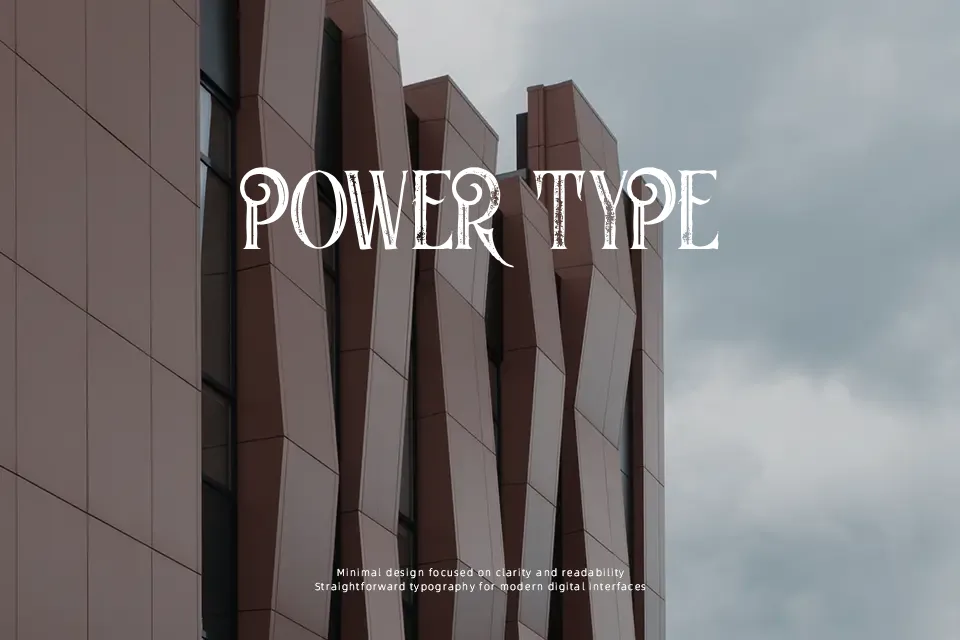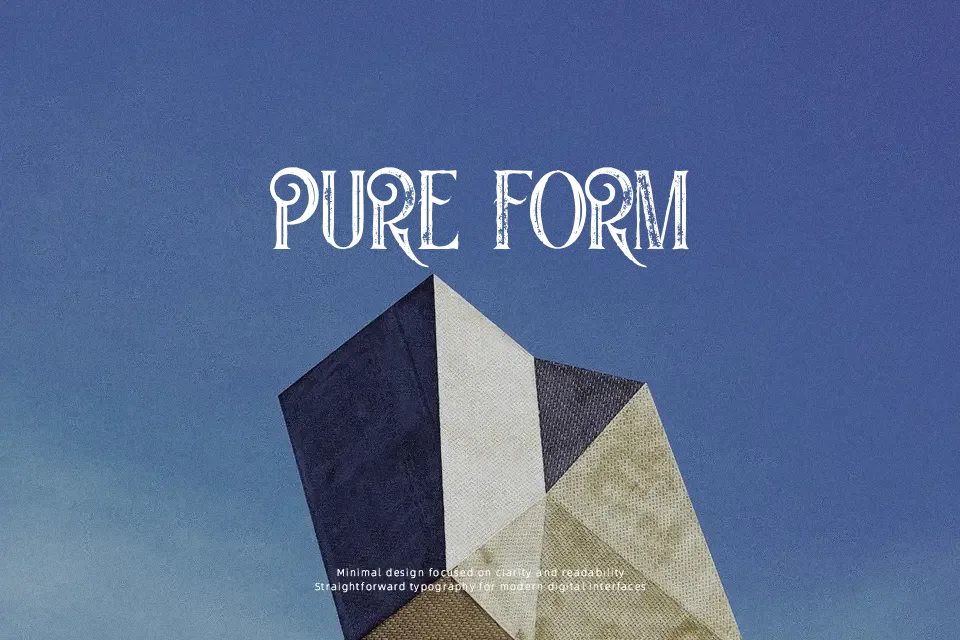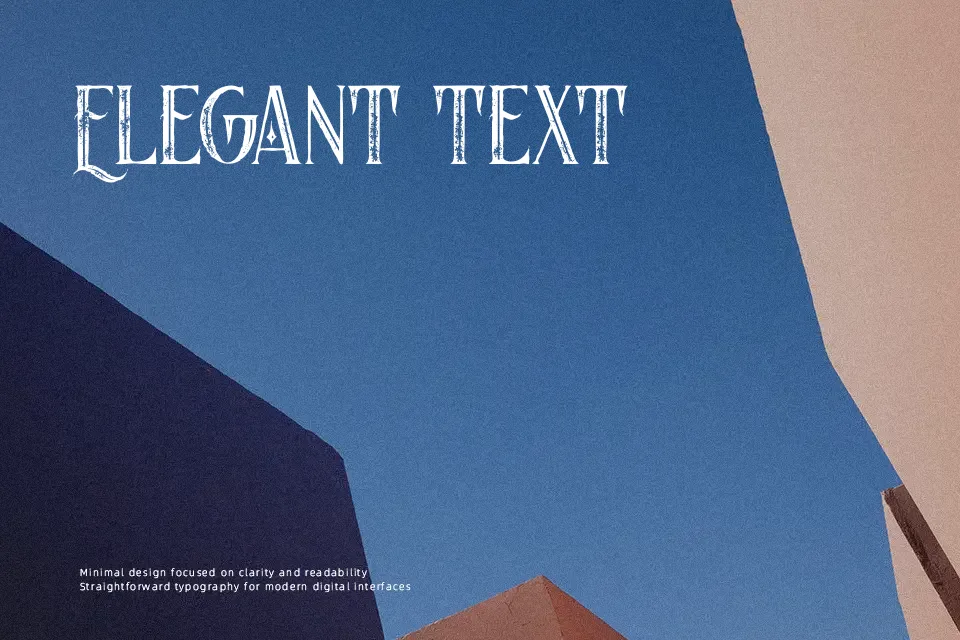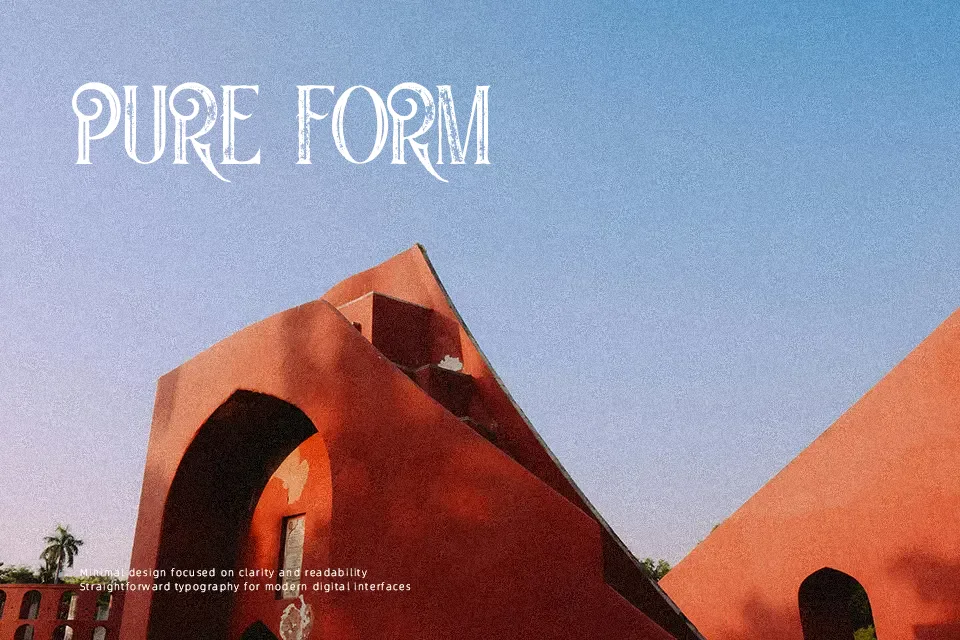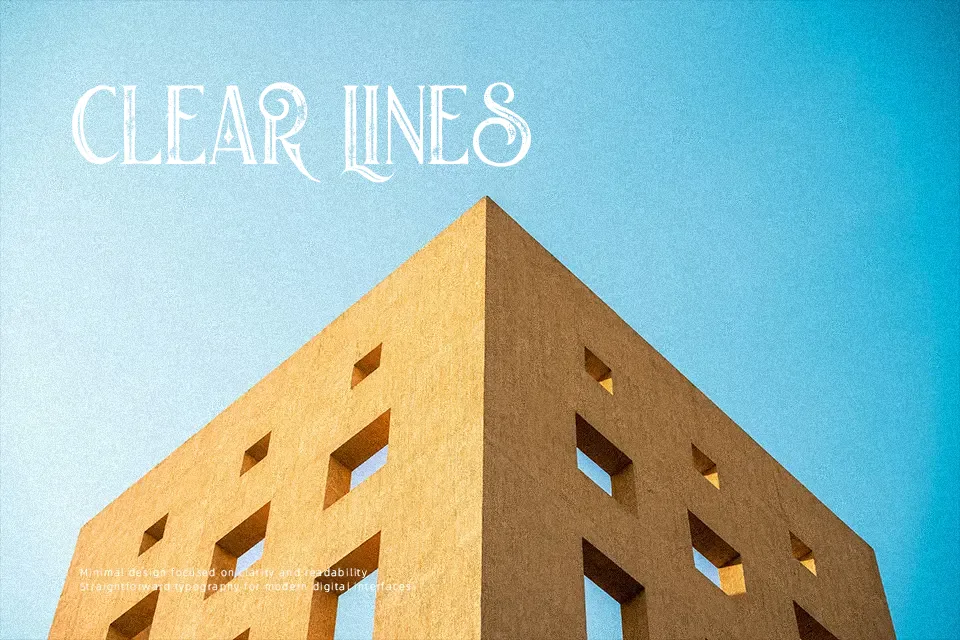
Nomos Font
Nomos Font uses condensed, all-capital display letterforms with heavy strokes, inset outlines, and visibly distressed details within the characters. The proportions feel narrow and vertically focused, while the close visual rhythm gives short words a compact, emphatic presence. Its decorative construction reads most clearly in large headlines, labels, and logo-style compositions, where the inline treatment has room to show. The spacing supports punchy display settings rather than extended copy. In practical use, the textured interiors add character to short phrases but can make smaller text and dense layouts harder to read.
Best For: vintage product packaging,music poster headlines,apparel graphics,retro logo treatments
Perfect for branding, logo, and packaging, with a bold and condensed style.